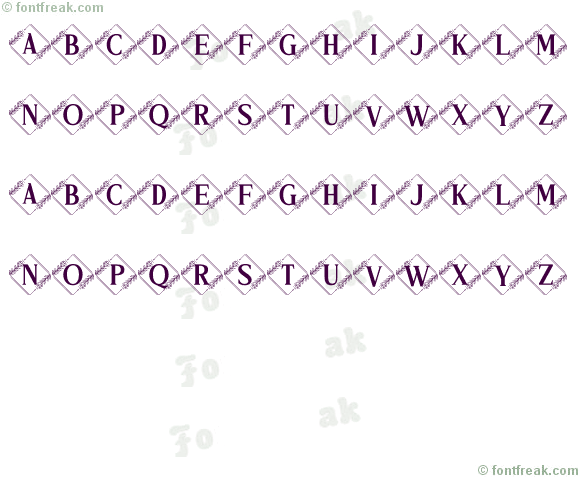
Vierasti Monogram
About Vierasti Monogram
Vierasti Monogram, designed by Perspectype Studio in 2021, is a striking display font that beautifully combines elegance and modernity. This unique monogram typeface features a distinct serif style, characterized by its ornate letterforms and intricate details. The stroke weight varies elegantly, with fine lines accentuating the delicate curves and sharp edges of each character. The contrast within the letters adds depth, making them visually appealing while maintaining legibility. The spacing is well-balanced, ensuring that each letter stands out, yet flows seamlessly when used in words.
This font is ideal for a variety of creative applications. Its sophisticated design makes it perfect for wedding invitations, where couples can showcase their names in an elegant, personalized way. It also shines in branding for upscale restaurants, offering a refined touch to menus and promotional materials. Graphic designers can utilize the Vierasti Monogram font in logo creation, particularly for brands aiming for a luxurious and timeless aesthetic. Additionally, it serves well in event announcements or flyers, where a unique visual identity is desired.
The target audience for this font includes graphic designers, small business owners, and content creators seeking to elevate their projects with a distinctive touch. Whether you are crafting branding materials or personal stationery, this font can add a layer of sophistication and artistry.
What sets the Vierasti Monogram font apart is its ability to evoke a sense of exclusivity while remaining accessible, as it is available for free download. Its intricate design and versatility make it a valuable addition to any creative toolkit, allowing users to create memorable and visually stunning works that leave a lasting impression.